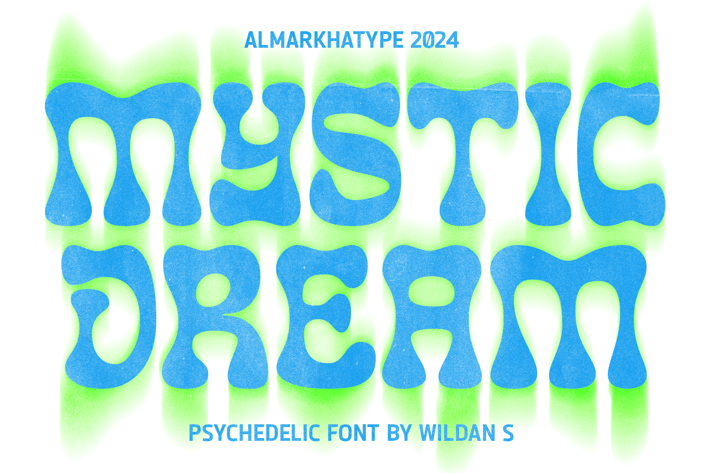
Mystic Dream - Retro Funky Font
Almarkha-Studio
Mystic Dream is an experimental display font inspired by the Otto Eckmann font. Mystic Dream is twisted with a groovy and quirky style, and is designed as an all-caps font. The style of Mystic Dream embraces a retro aesthetic.
Mystic Dream is ideal for projects that seek to convey a sense of retro, groovy, and funky. This font design makes it a perfect choice for:
Vintage Branding
Unique Brand Identity
Branding for artisanal products and businesses
Event invitations and programs
Decorative prints and posters
Kerning: Carefully kerned for optimal spacing and readability.